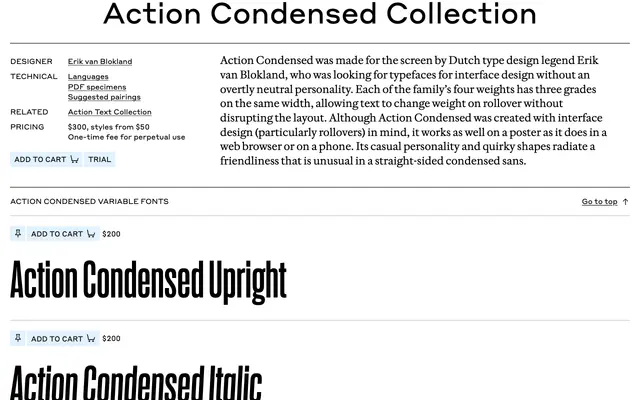
Action Condensed
Commercial Type · Erik van Blokland
A condensed screen sans by Erik van Blokland, with grades for rollover swaps and a friendly, slightly quirky personality.
A condensed sans by Erik van Blokland, drawn for interface design without an overtly neutral personality. Four weights each have three grades on the same width, so text can change weight on rollover without disrupting the layout. Although built with screens and rollovers in mind, it holds up on posters as well as in browsers and phone interfaces, with a casual personality and quirky shapes that give it more warmth than most straight-sided condensed sans.
A condensed sans designed for interface and screen work, with four weights and three grades per weight so text can change weight on rollover without disrupting layout. Commercial Type describe it as casual and quirky for a straight-sided condensed sans.